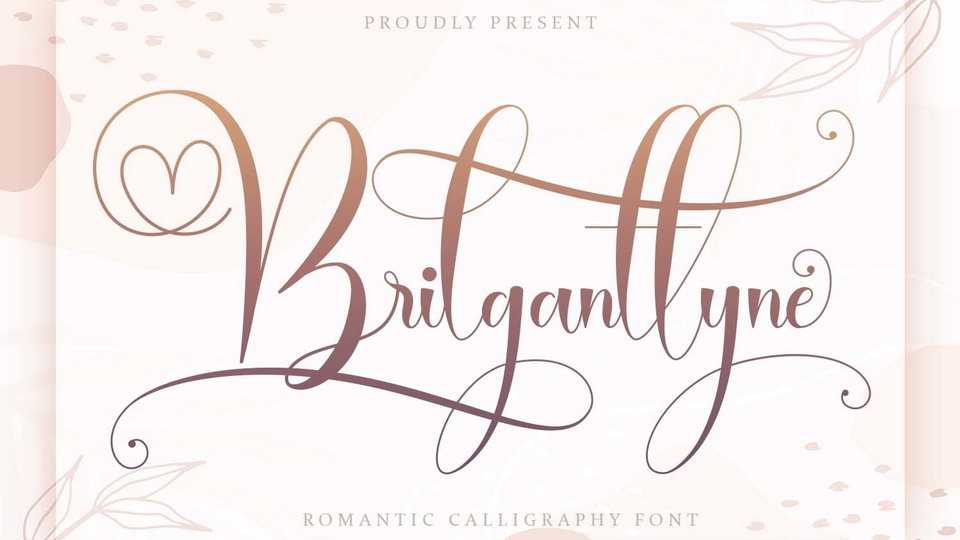
Download Brilganttyne font, a sweet, soft calligraphy typeface with a romantic feel. With its authentic feel Brilganttyne is perfect to create gorgeous wedding invitations, beautiful stationary art, eye-catching social media posts, and cute greeting cards.